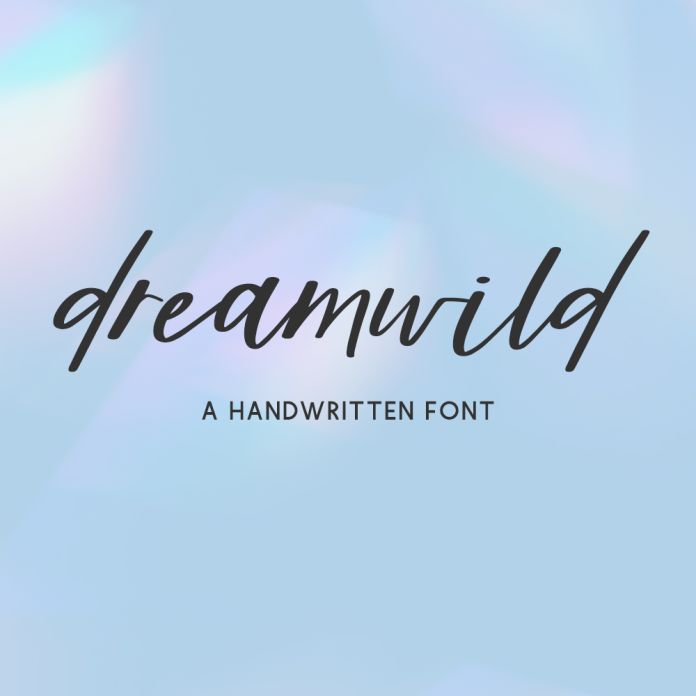
Introducing Dreamwild, a modern calligraphy font.
Dreamwild is best for:
- feminine, crafty projects with your Silhouette machine, or your SVG design business